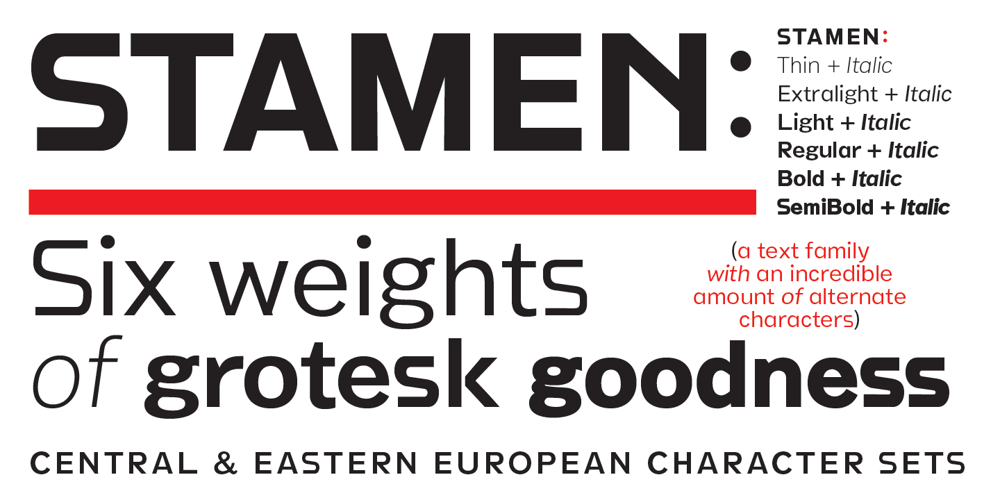
Stamen Font Family was designed by Ian Lynam and published by Wordshape. Stamen contains 12 styles and family package options. Stamen is the answer to a big question: What would happen if one tried to create a typeface that was ‘out of time’? If a type designer was to turn off the internet and put away the type specimens and just try to explore limbic, phantom history, what might that look like? No slavish explorations of the past. No gropings toward the future. No exhaustive core sample of the contemporary. Instead, using what one remembers of history and our collective vision of the future (usually a future imagined from the past) and channeling that into something that is, hopefully, new… The Bentons meet Frutiger for a Manhattan on a space station while Matthew Carter sways to the sweet sounds of the chorale that occasionally played through the halls of Stephenson Blake. This smear of implicit history expressed without explicit reference—this is Stamen: a family of 12 typefaces with a ton of alternate characters. The bold weight was designed for the LP “I Thought the Future Would Be Cooler” ( http://ittfwbc.com/ ) by the band YACHT in response to their request for a typeface that was ‘lost in time’, and refers to neither strict historical models nor purely futuristic forms. I built a small family out from there. It works well in text, but just as well for display setting. I think you’ll enjoy using it.